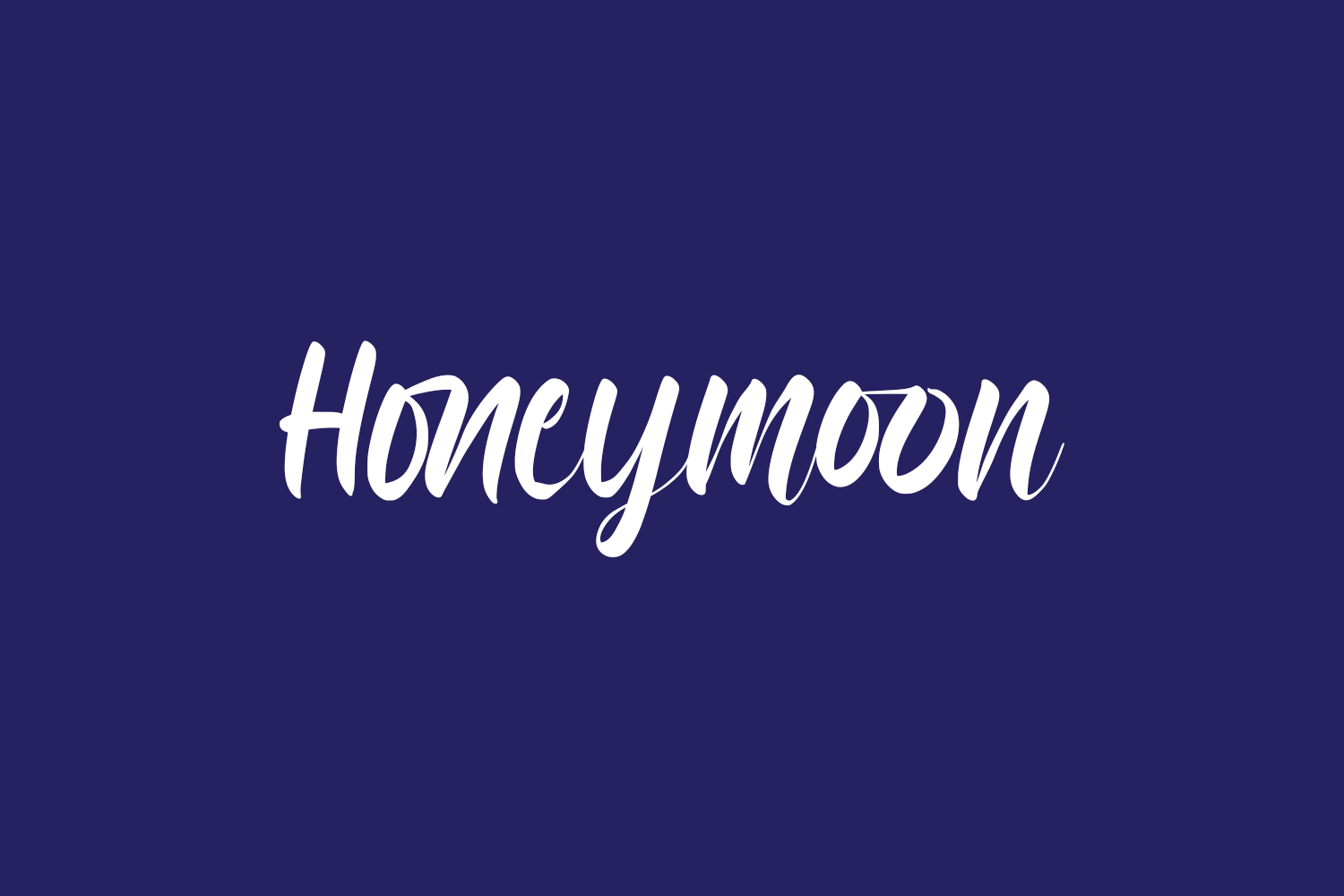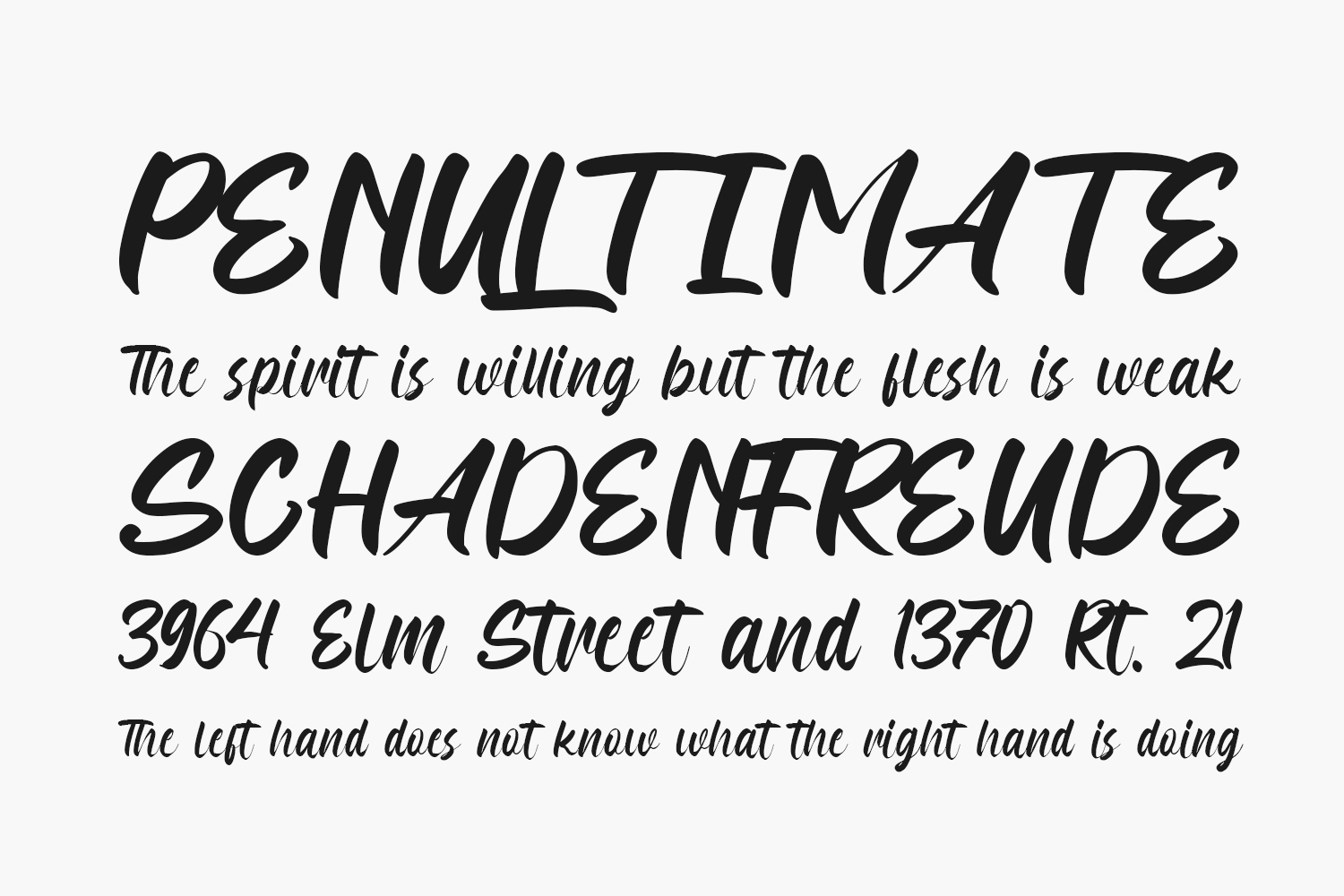
Honeymoon Free Font is a charming and graceful script font that embodies the beauty of natural handwriting. Prepare to be enamored by its ravishing style, perfect for creating stunning wedding invitations, exquisite stationery art, captivating social media posts, and a myriad of other creative projects.
Let Honeymoon’s elegant strokes and flowing curves add a touch of enchantment to your designs, ensuring that every piece exudes a sense of romance and sophistication. Elevate your creations with this captivating script font and let its graceful allure captivate your audience. Honeymoon Free Font is free for personal use only. Please purchase the full version for commercial use.